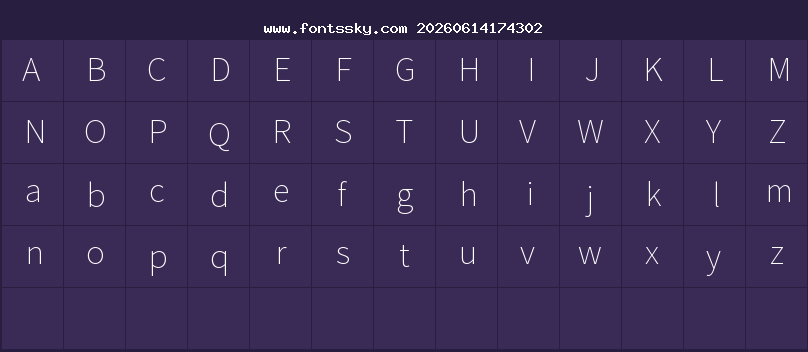
Noto Sans S Chinese Thin Preview
• Font Name: Noto Sans S Chinese Thin
• Font Style: Thin
• Full Font Name: Noto Sans S Chinese Thin
About Noto Sans S Chinese Thin.ttf
Noto Sans S Chinese Thin.ttf is a modern, elegant sans-serif font designed for ultimate readability and visual harmony. Perfect for branding, headlines, web design, and print materials.